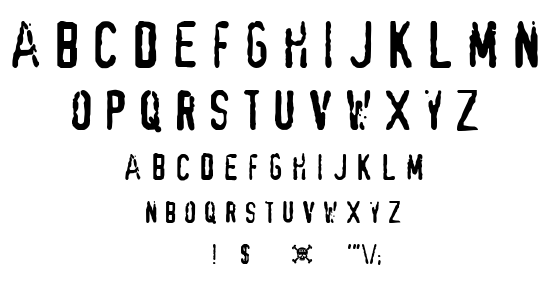
VIDEO PIRACY IT’S A CRIME !…. I have always loved the font used for the BBFC trailer on the front end of all DVD’s and Blu Ray discs couldn’t find it anywhere on the web so here is my version eroded and distorted in much the same way. Sorry no numbers at the moment might get around to it in later versions. Avast me hearties, yo ho!